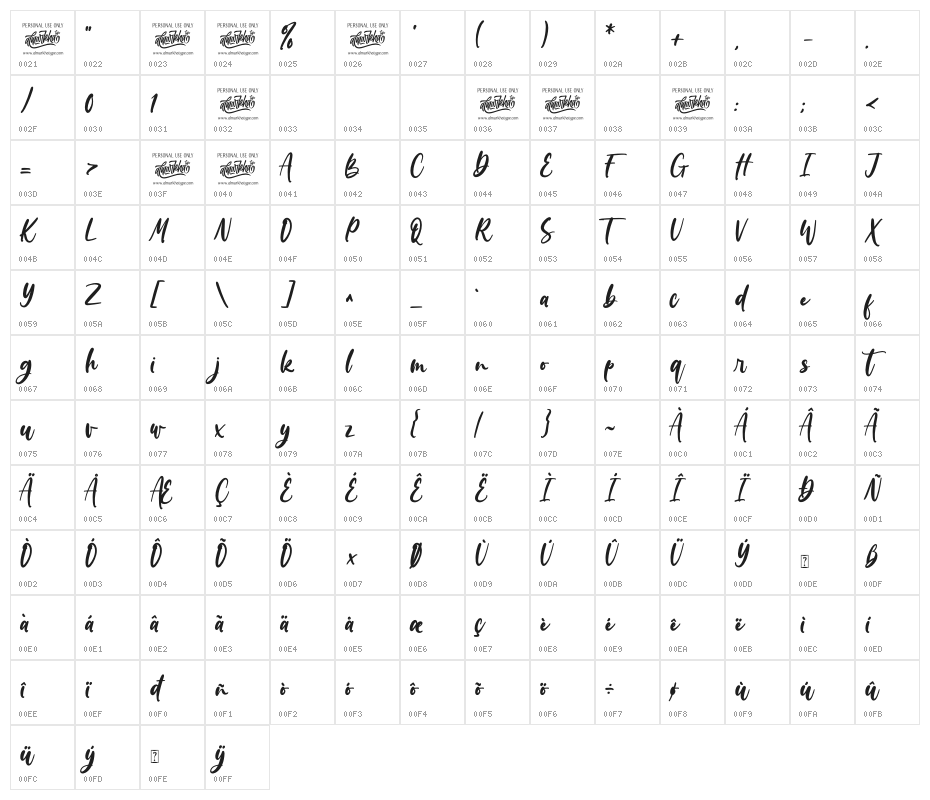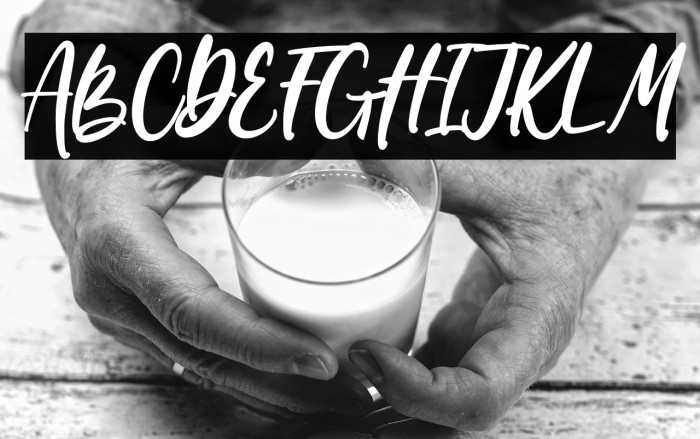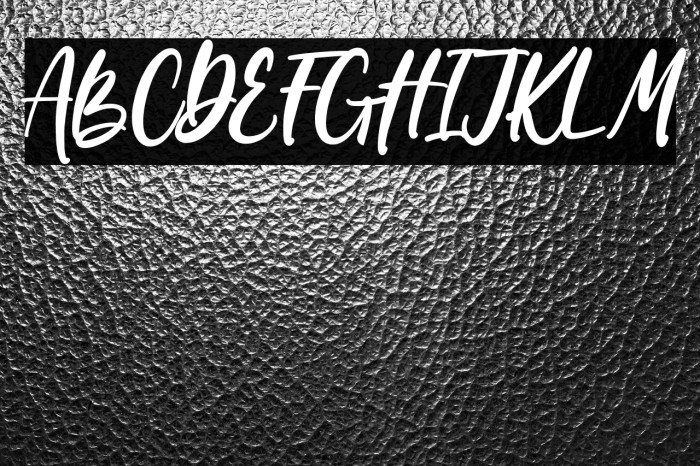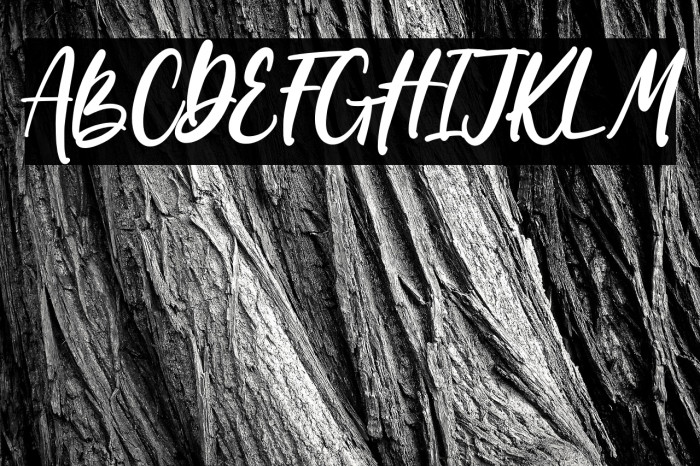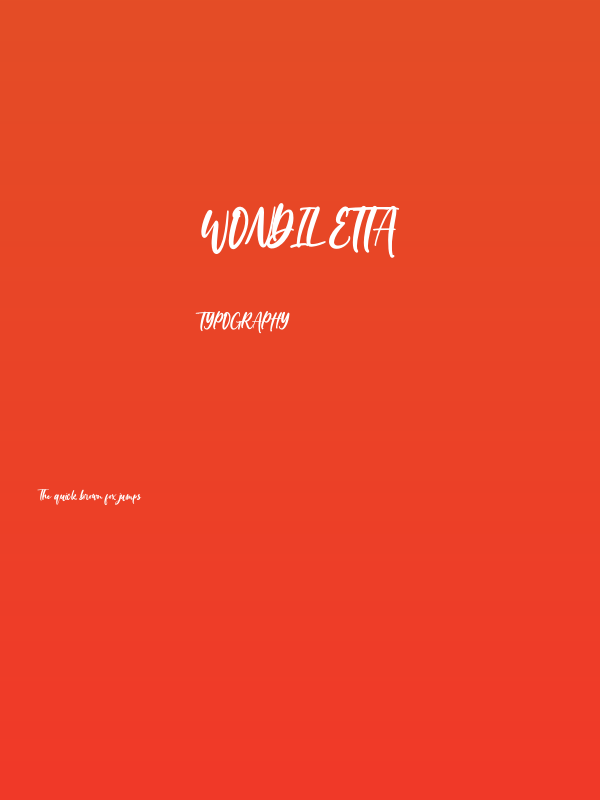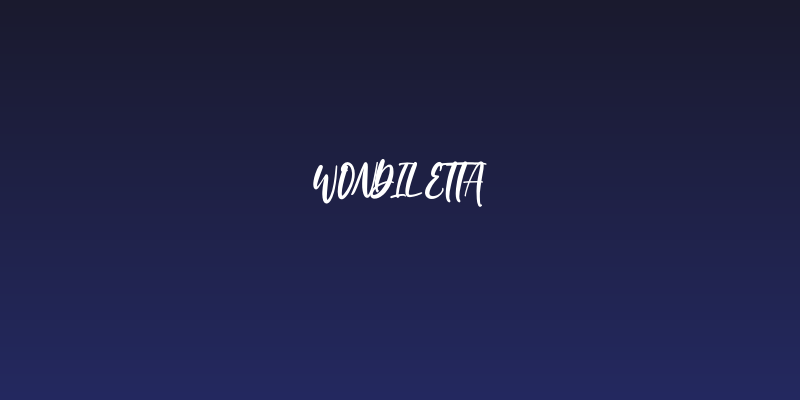
Wondiletta Font
Wondiletta Description
This font features a dynamic and expressive handwritten style, characterized by its fluid and flowing strokes. The uppercase letters exhibit a bold and confident presence, while the lowercase letters maintain a harmonious balance with their slightly more compact form. The script is designed with a natural rhythm, giving it an authentic handwritten appearance. The characters are well-spaced, ensuring readability while maintaining the artistic flair. The font includes a full set of uppercase and lowercase letters, numerals, and a selection of special characters, making it versatile for various design needs.
| Proposed Projects | Ideal for branding, invitations, greeting cards, and social media graphics. |